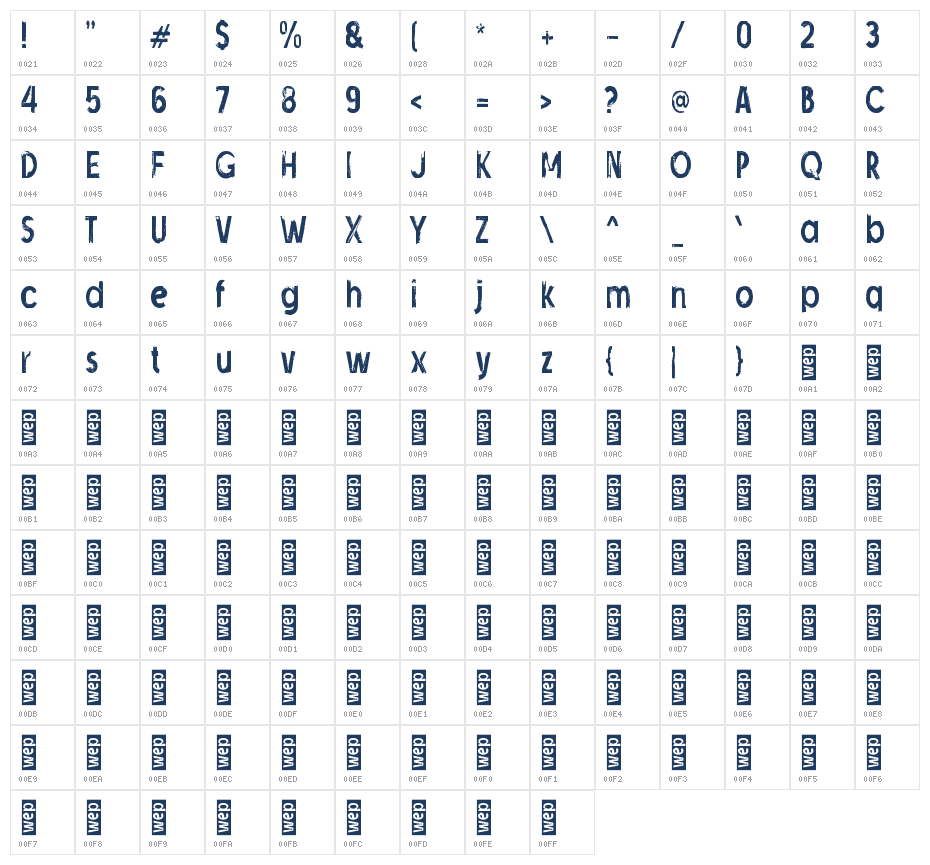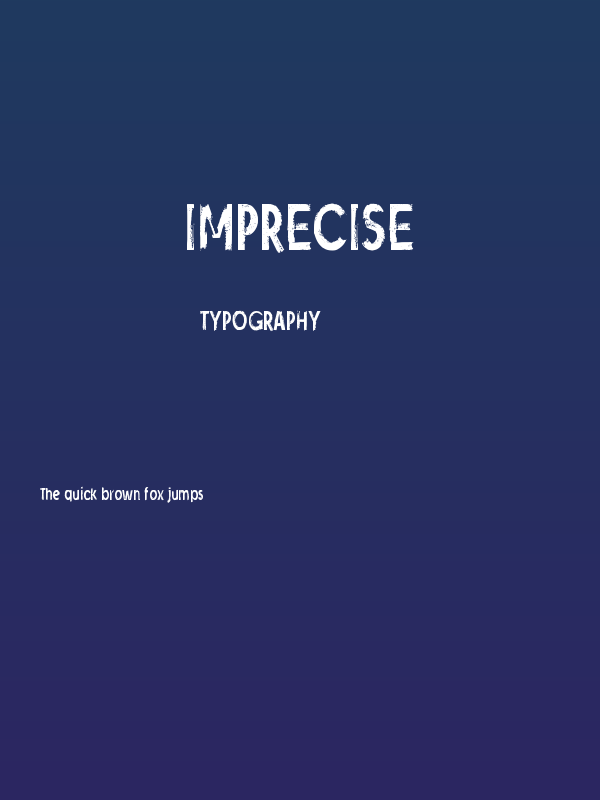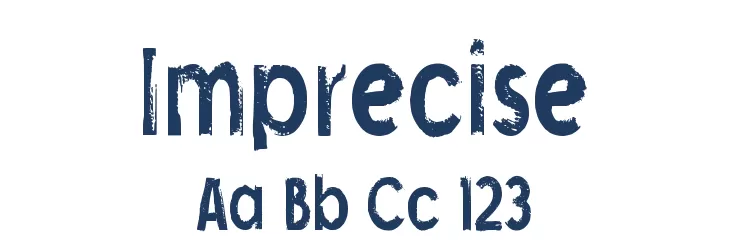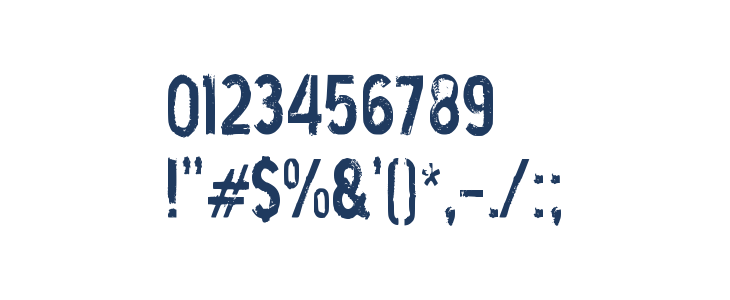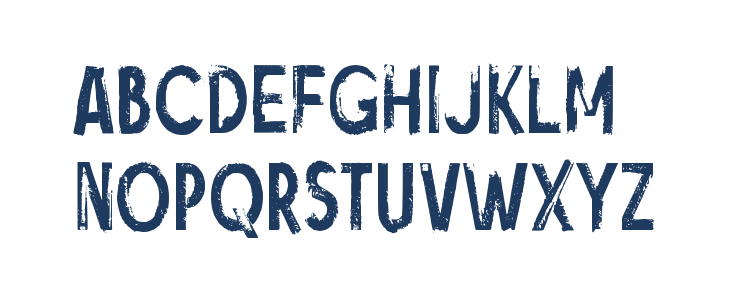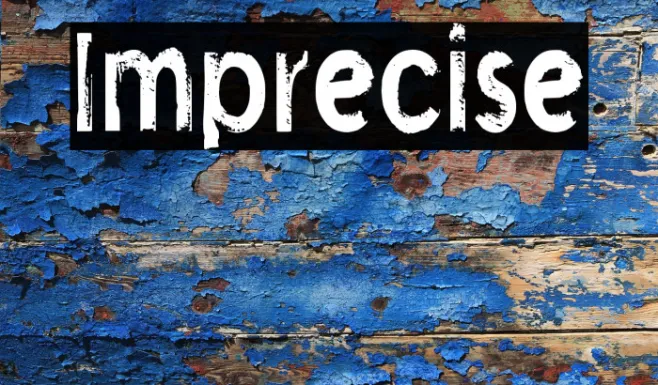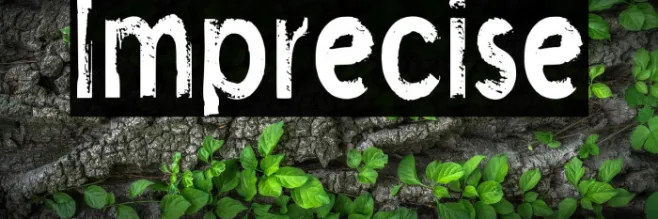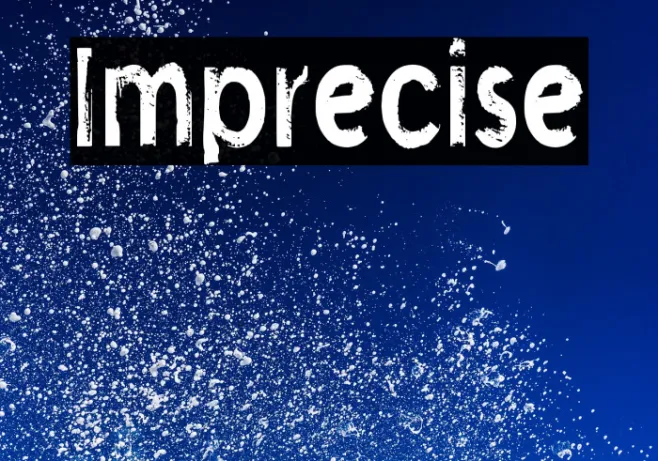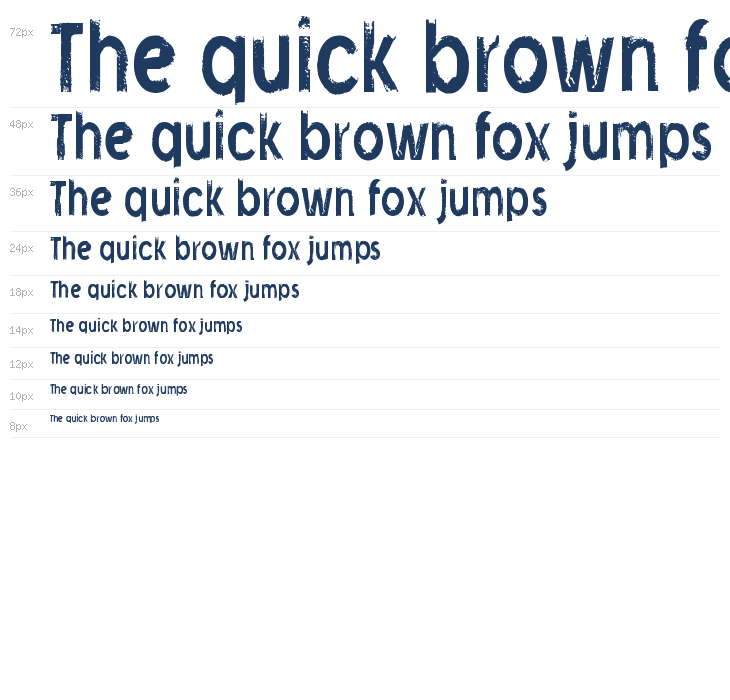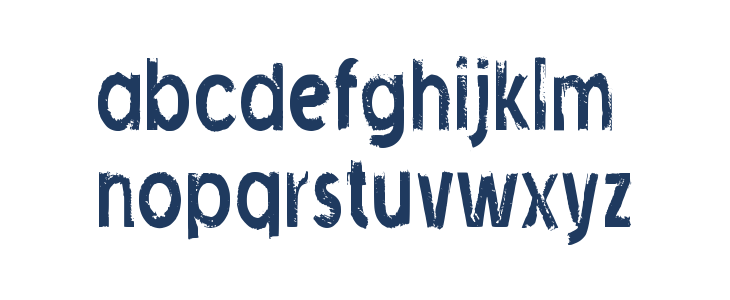
Imprecise Font
Imprecise Description
A distressed, textured sans-serif font with a casual, playful style.
IMPRECISE UPPERCASE
IMPRECISE LOWERCASE
IMPRECISE OTHER CHARS
| Overall Style | Casual, Playful, Textured |
| Use Case | Headlines, Posters, Creative branding |